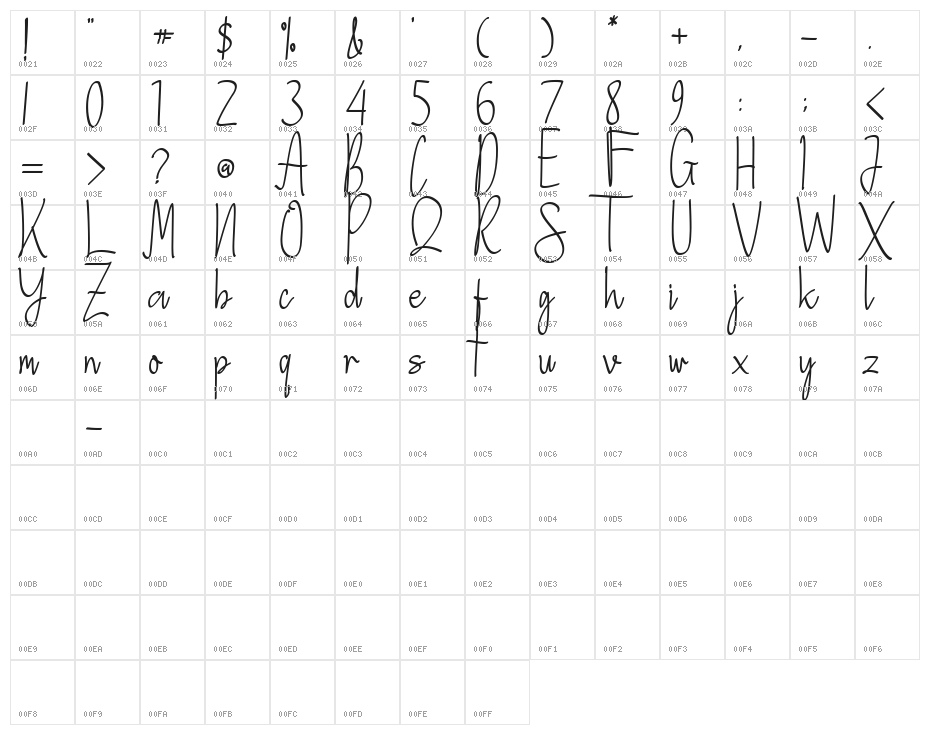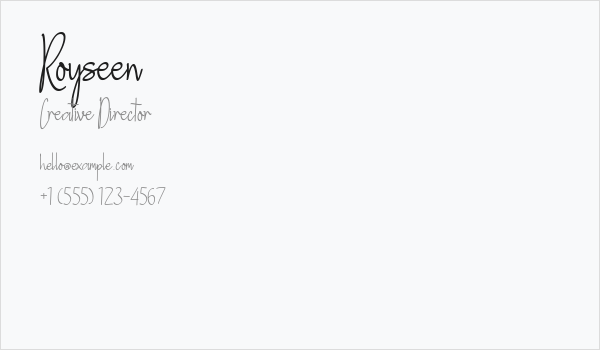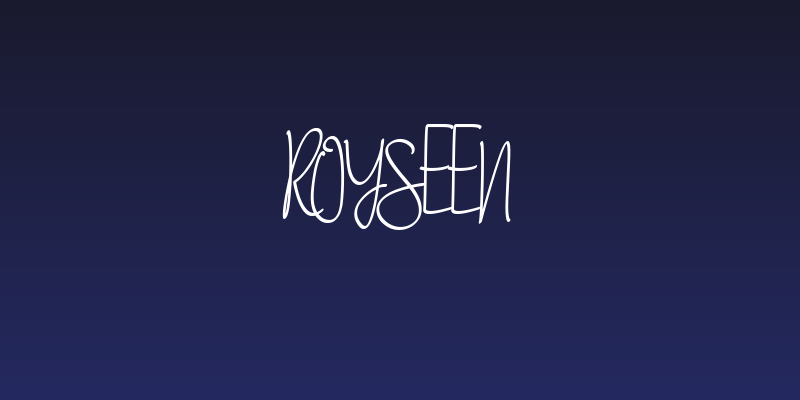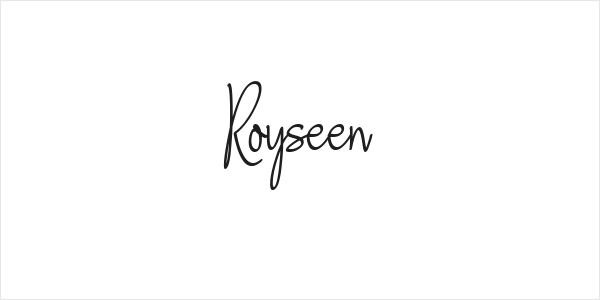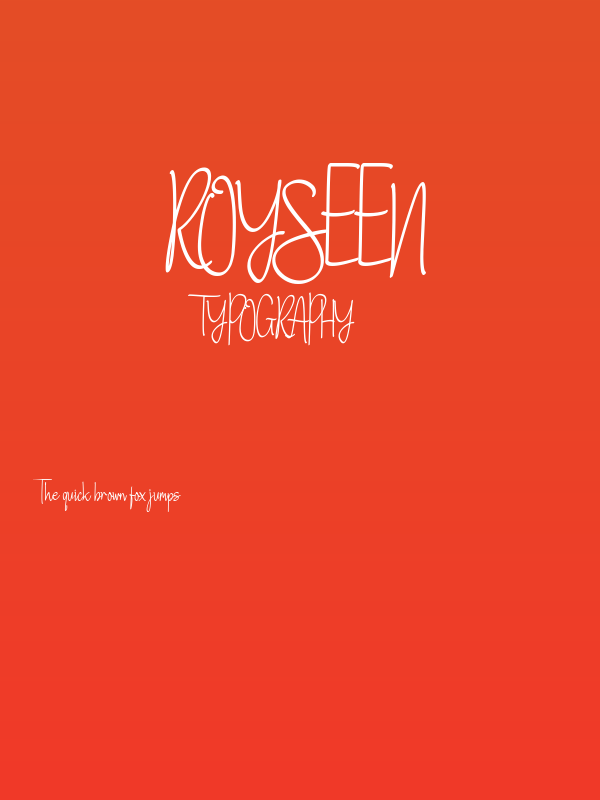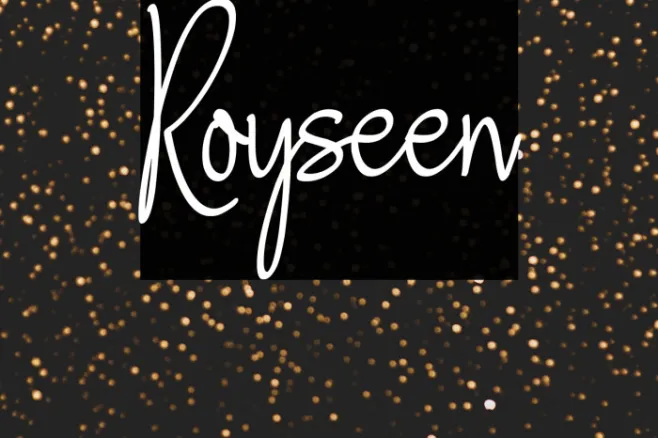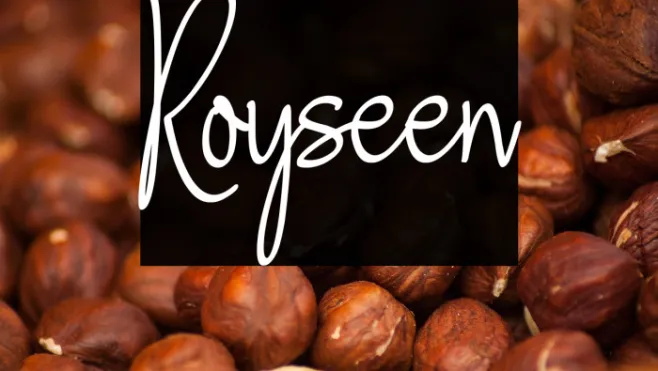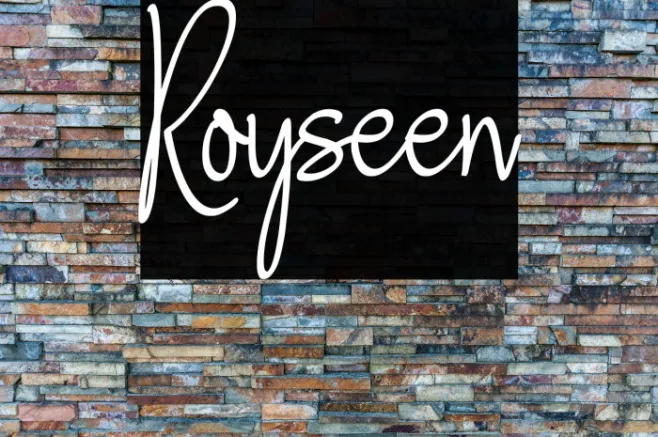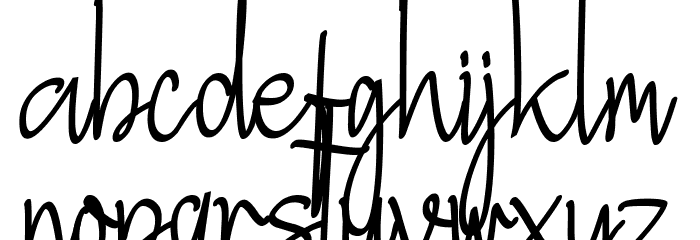
Royseen Font
Royseen Description
This font features a unique handwritten style with a playful and artistic flair. The letters are elongated and slightly irregular, giving it a casual and personal touch. The uppercase letters are tall and narrow, while the lowercase letters maintain a consistent flow with a slight slant, enhancing the handwritten feel. Numbers and special characters follow the same style, ensuring a cohesive look across all elements. The overall design is dynamic and expressive, making it suitable for creative projects that require a personal touch.
| Proposed Projects | Ideal for greeting cards, personal branding, creative invitations, and artistic posters. |